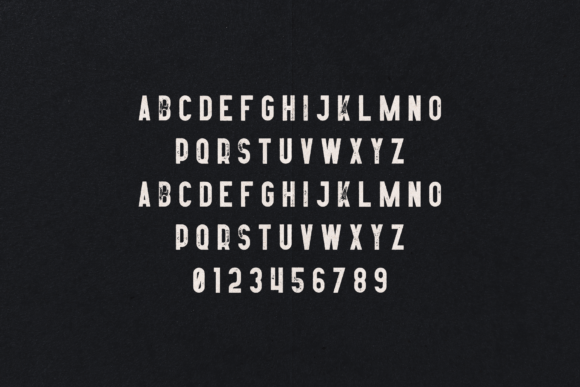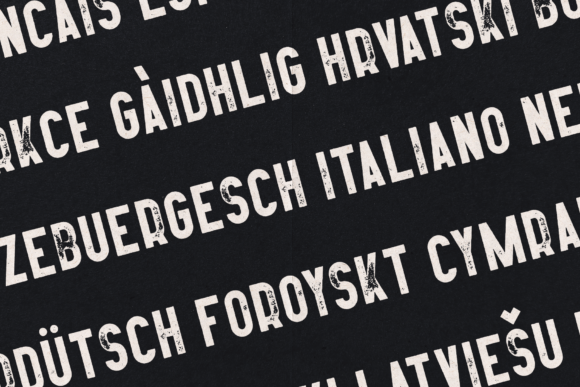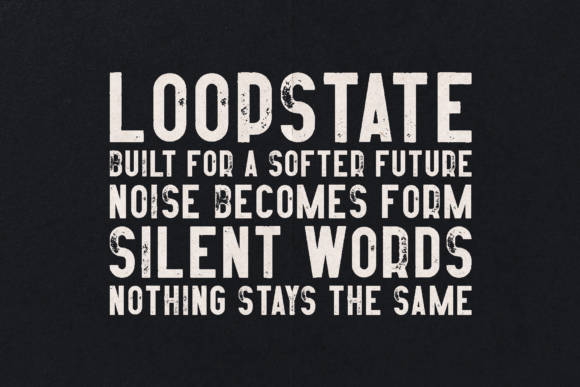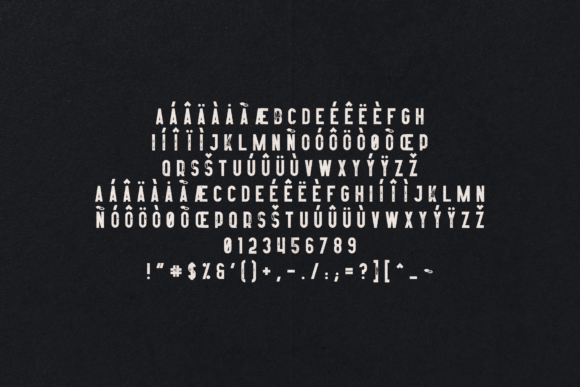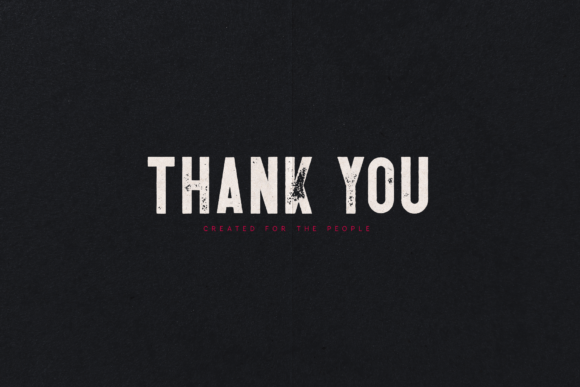
Introduction to Afterclap Textured Edition Font
Have you ever been working on a creative project and felt like it was missing that one crucial element to make it truly stand out? For designers, the perfect font can be the difference between a good design and a great one. This is where the Afterclap Textured Edition Font comes in – a game-changing, high-quality design resource that adds raw impact and expressive visual statements to any project.
With its heavy letterforms, distressed texture details, and industrial feel, the Afterclap Textured Edition Font is perfect for designers who want to create bold, attention-grabbing designs that demand attention and attitude. Whether you’re working on a poster, album cover, or social media graphic, this font is sure to deliver a tactile, worn-in aesthetic that feels loud, authentic, and unapologetic – with a transparent background that makes it perfect for digital applications.
Key Features of Afterclap Textured Edition Font
- High-quality, unique textures and patterns for creative projects
- High-resolution design (up to 300 DPI) for crisp and clear text display
- Perfect for use in various design contexts, including branding, packaging, and digital art
- Unique, hand-crafted design that adds a personal touch to any creative project
Honest Review: Afterclap Textured Edition Font
I recently came across the Afterclap Textured Edition Font, and I must say it’s a fantastic addition to any designer’s toolkit. As a design enthusiast, I’m always on the lookout for high-quality fonts that can elevate my creative projects. Afterclap Textured Edition Font definitely delivers.
- ✨ High-quality texture that adds depth and character to any design
- ✨ Versatile font that can be used for a wide range of creative projects, from branding to typography
- ⚠️ Not ideal for designs that require a transparent background, as the texture may not display properly
- ⚠️ May not be suitable for very small text sizes, as the texture can become pixelated
The Afterclap Textured Edition Font is ideal for various creative projects, including: